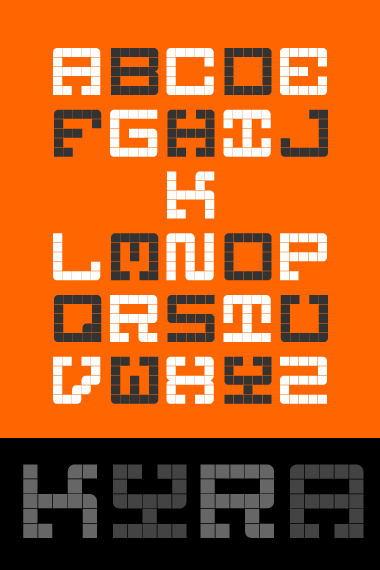
Very interesting experiment.
Something to think about: Is the lowercase really needed?
I agree that the Uppercase is far stronger, but nice work.
Very nice design inspired by pixel fonts. I tend to agree with thalamic and p2pnut. You may not need a full set of lower case for a display font. No sane typographer would use KYRA 1 for the War and Peace. But instead of throwing it out the window, I would use selected glyphs of both the upper and the lower case to make a strong and consistent set. For instance, the H and X are almost identical; the g and 9 likewise. I would keep the v,x,n,y,l. You can, actually, keep more than one version of a letter if you want, as alternatives, in the same font. The Y looks like a beautiful goblet. Nice demo pic. 10/10
I perfectly agree, my lowercase is much weaker than the Uppercase. I try to go as far as I can with the concept. By the end I was unable to remove the lowercase. I prefer let the the end user decide witch glyph to use in their work. Also the heignt is the same for Upper and lower so it can be easily mixed.
Kyra star with the T and Y. I try to decline all others glyphs. There is no square alone on the loose. They are always snap to a rounded corner make the diagonale harder to represent.
Some glyph I'm with unhappy with, v, r, b,d,p,q.
I agree X et H looks alike. I'll try to find something else. Of course if you look at thses two letter in bigger size, the difference is easyer to see.
Nice job! The only thing is that the lowercase is kind of the same and some are exactly the same. But over this is a nice font. Nice job on making 203 glyphs! Looks great in PXL view, even though it wasn't ment for that.
BTW The only gylphs i think could some work are V, z (it looks like a 2) and maybe you could make the ~ more like the sign on top of the letters. 9/10
Well that was a concept that I try to push as far as I can: No diagonals, have an interior slab, and fill up as possible the 5by5 grid (like I, M)
Wihtout diagonals I've no clue how to design a regonizeable Z differentlly, all suggestions are welcome espacialy for my V ;)
I tend to agree with you my lowercase are not realy interesting, I should remove them
Tilde, normaly the diatric is smaller than the pontuation one. It's a nice suggestion the small one is more sexy I'll change it
@At-At-Guy, I did it on purpose, I always try to make the font reabable at pixel size... well for pixel font looking